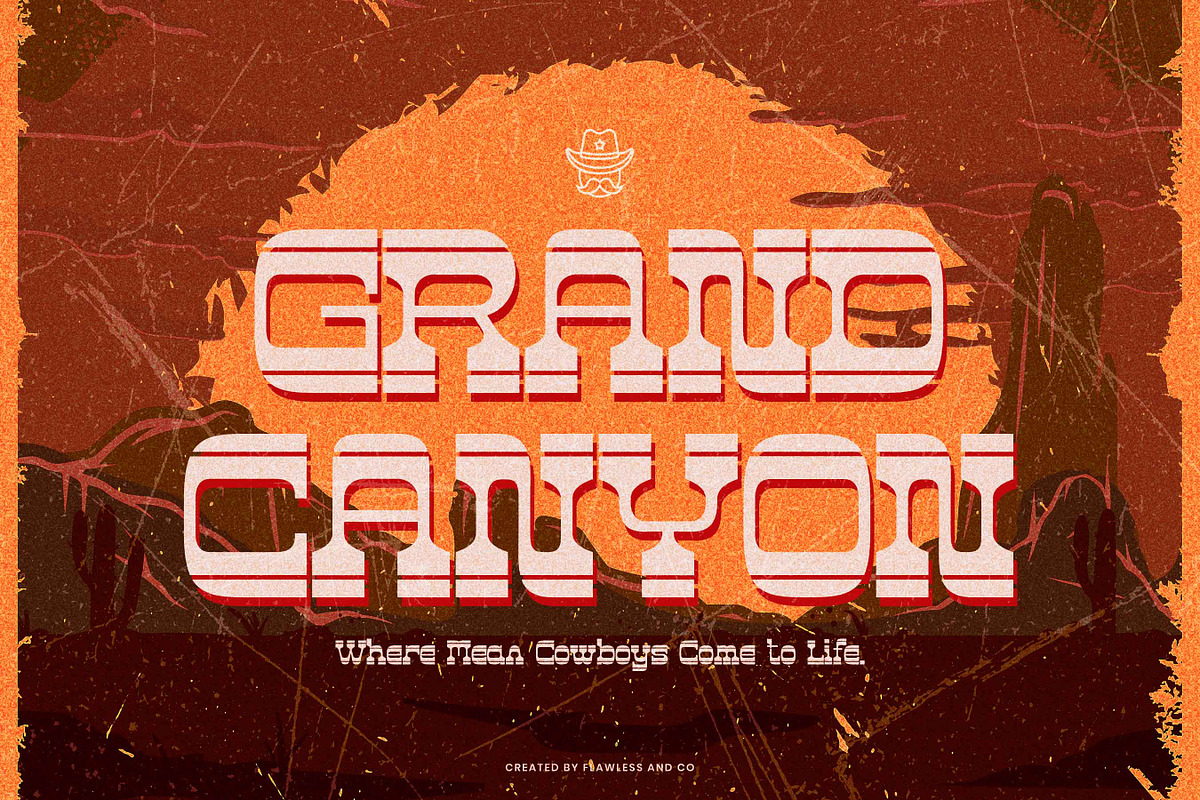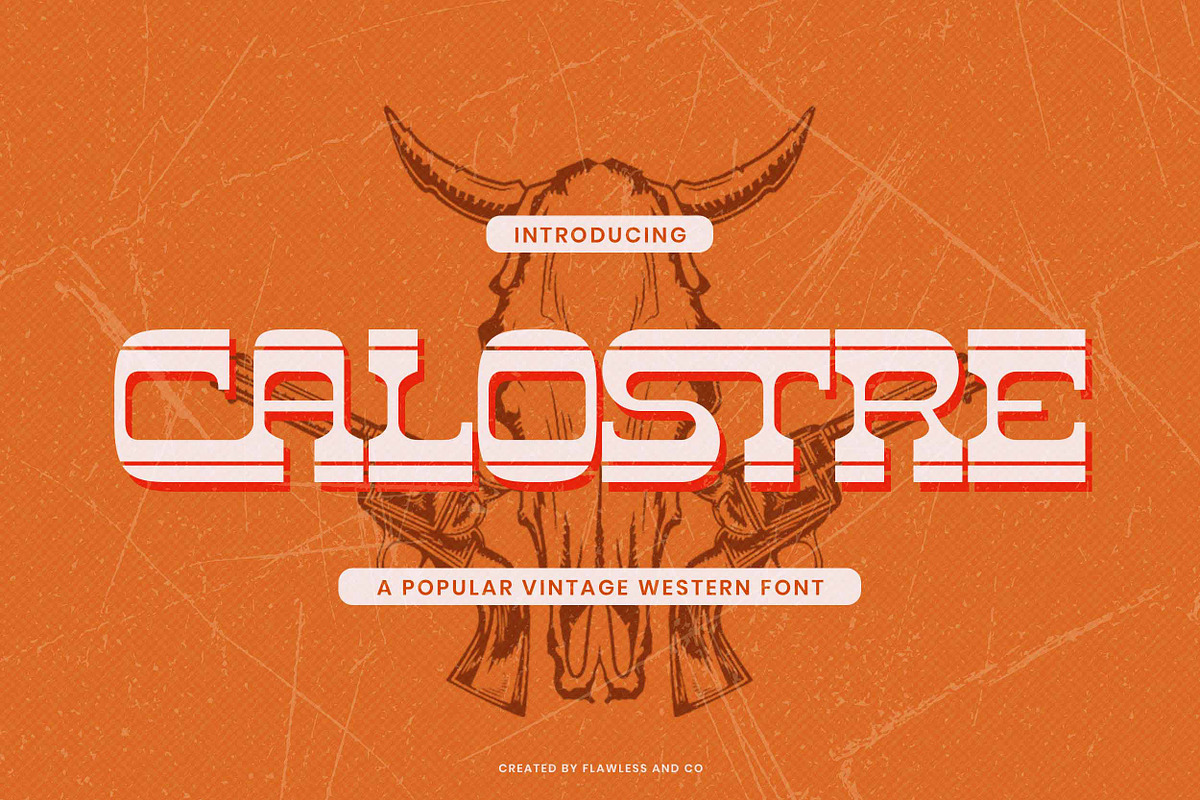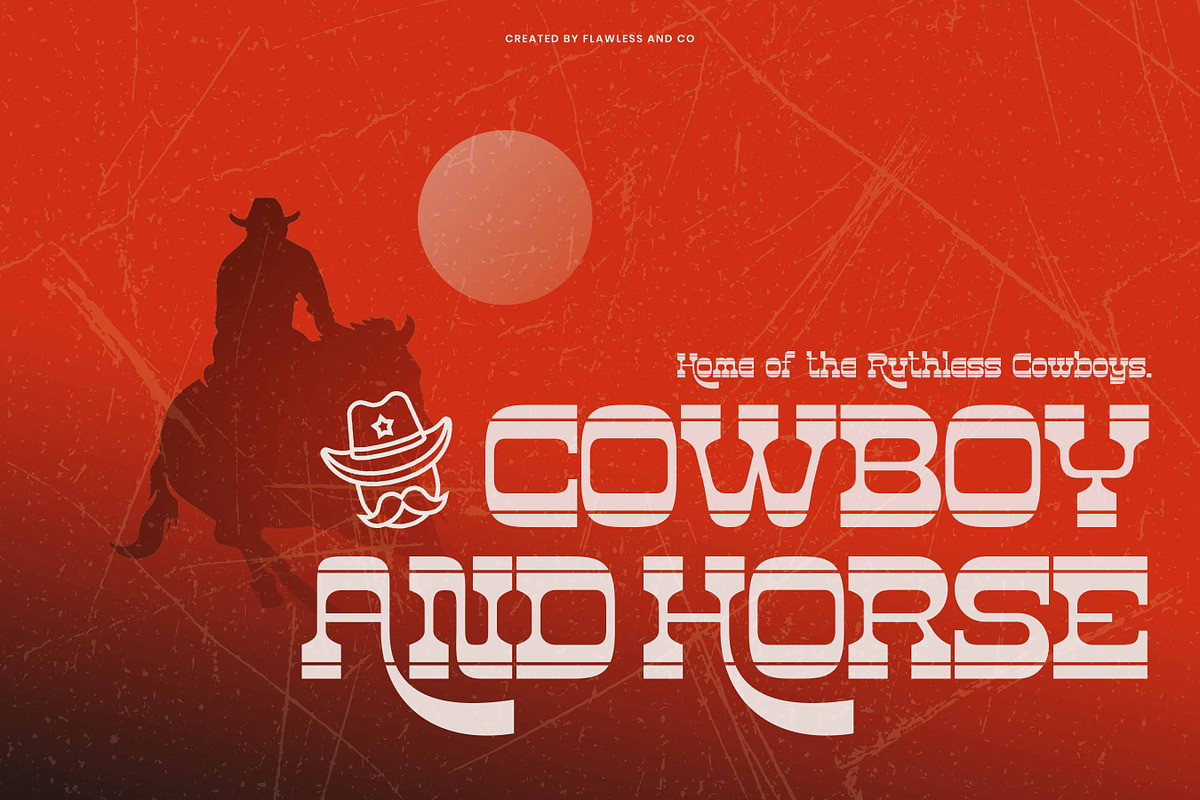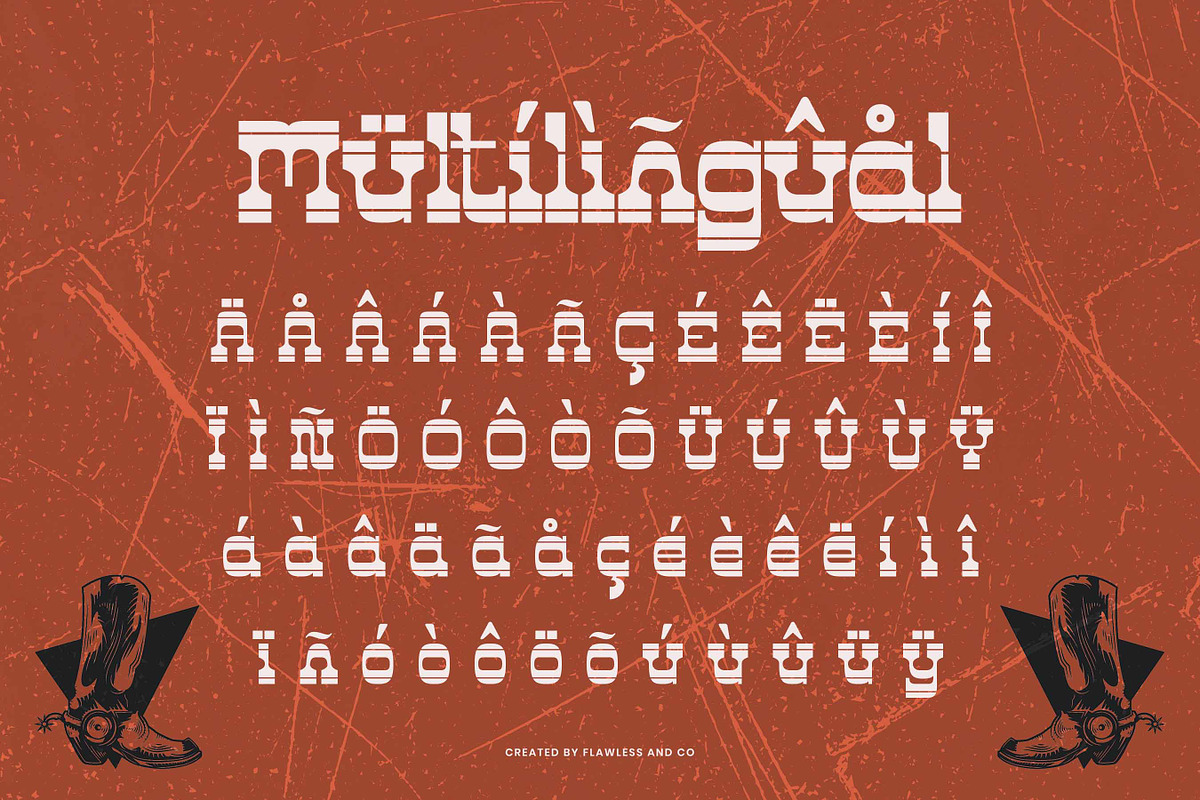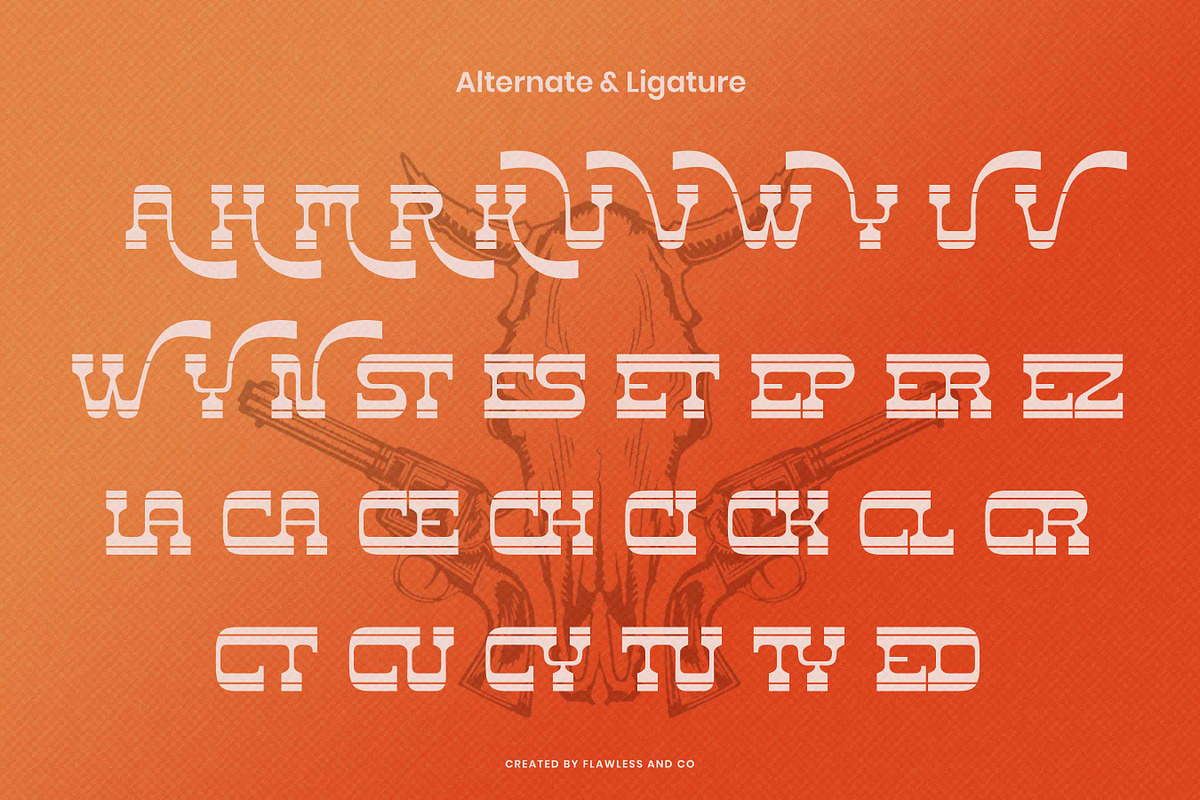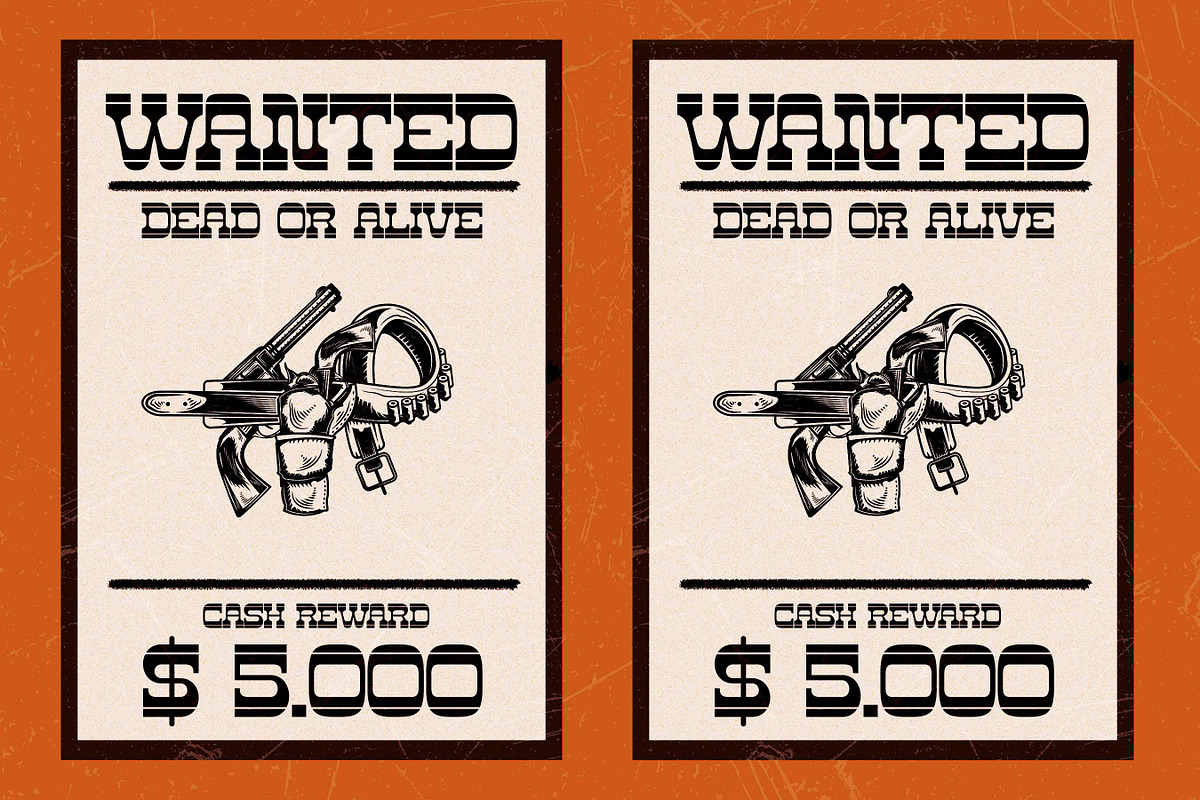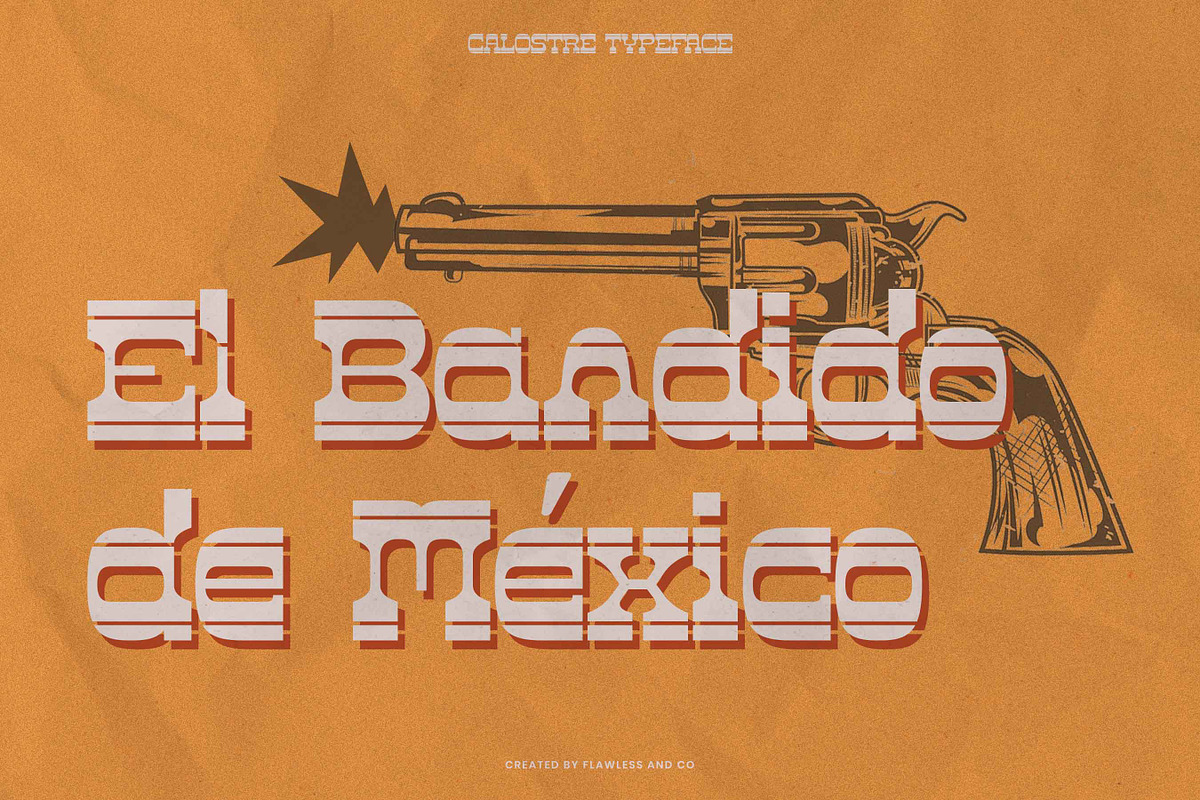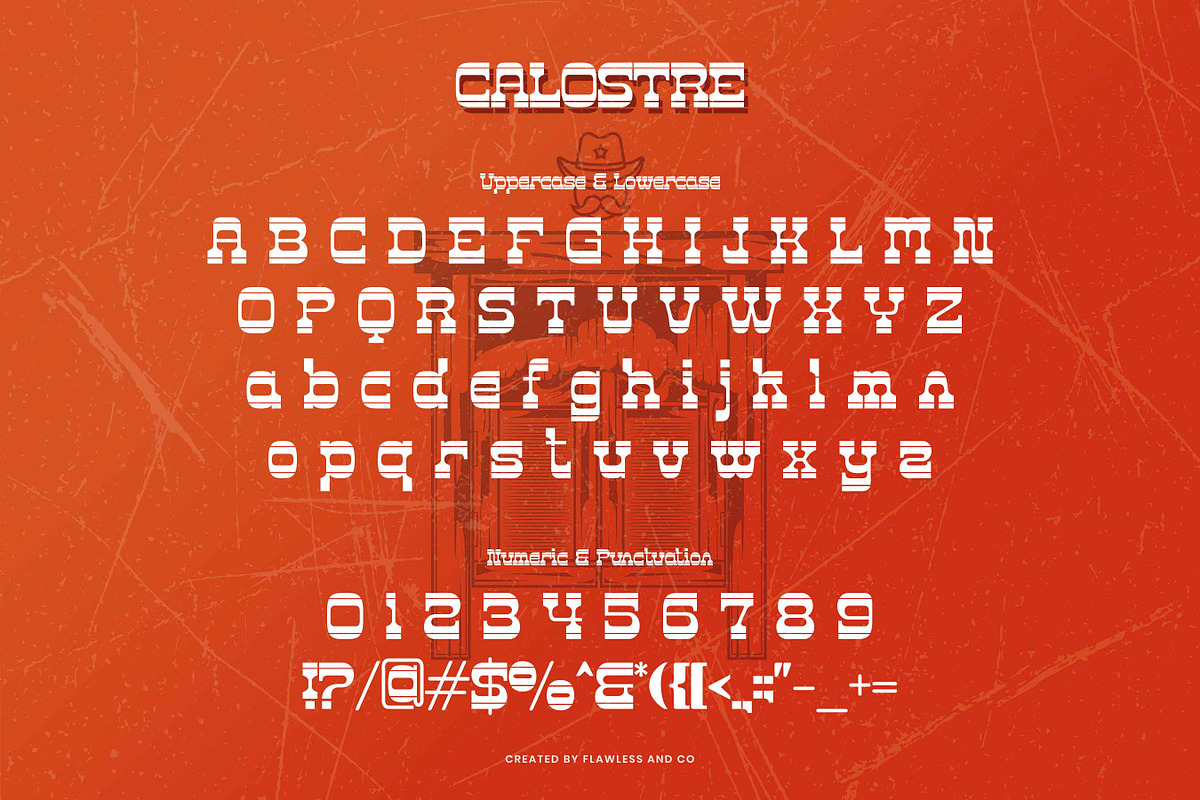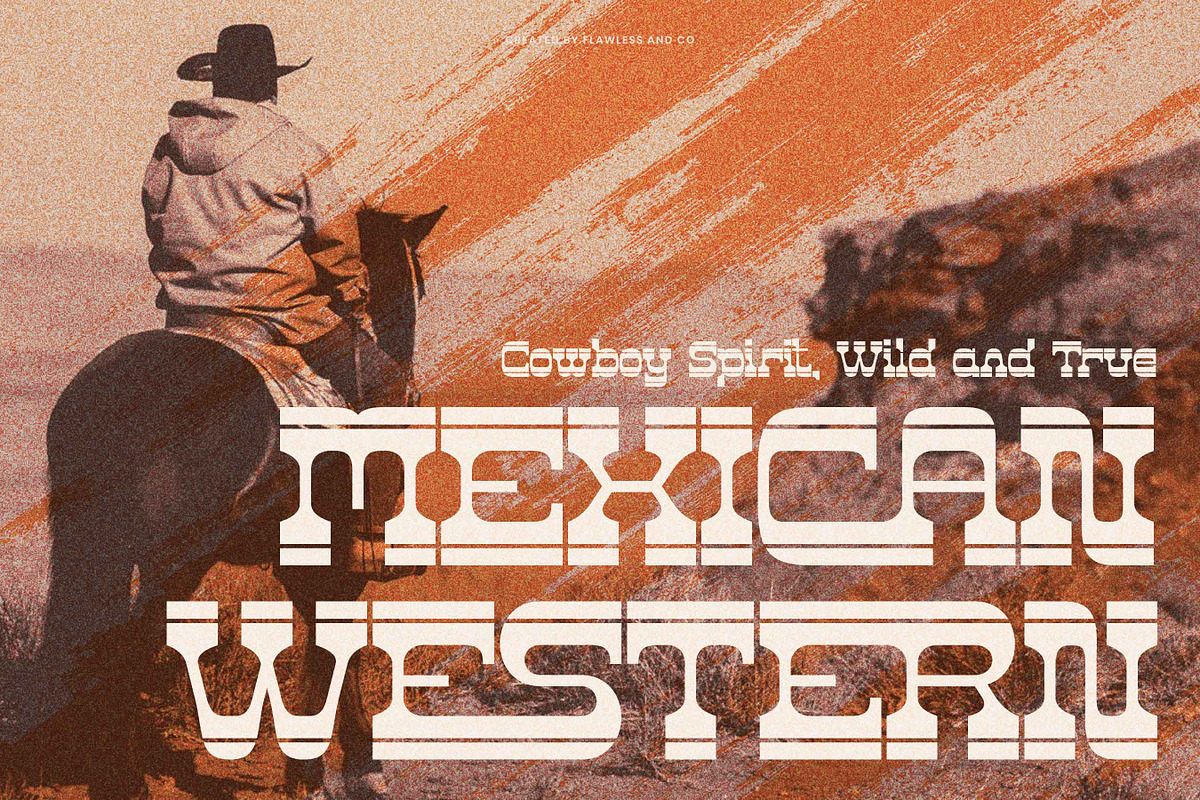
Calostre - Display Vintage Font
Calostre – Vintage Western Slab Serif Font
Calostre is a bold slab serif font that blends vintage western charm with a strong and confident presence. Inspired by classic cowboy culture, retro Americana, and rugged signage, Calostre stands out with its thick horizontal lines, geometric structure, and eye-catching modular forms. Perfect for impactful design projects such as vintage branding, liquor labels, posters, apparel, signage, and bold editorial headlines, Calostre delivers a powerful, distinctive voice. Its slab serif construction adds a sense of strength and stability, while the striped letterforms give it a unique and authentic western flair. The font includes stylistic alternates and unique design details, giving you the creative freedom to craft dynamic and memorable typography.
- Alternates & Stylistic Sets
Use Calostre to create striking visual compositions with retro attitude and timeless western spirit.
Who Should Use Calostre?
Calostre is the perfect choice for designers, creatives, and brand builders who want to bring bold personality and rugged character into their work. Whether you're crafting vintage-style logos, designing western-inspired posters, or building standout packaging, Calostre gives your project that iconic, nostalgic edge.
It’s ideal for:
- Western-themed branding
- Liquor and beverage labels
- Retro event posters
- Apparel and merchandise design
- Signage and editorial headlines
If your project calls for boldness, authenticity, and a touch of vintage grit — Calostre is your go-to font.
A Must-Have Font for Brand, Logo, and Poster Creators and Designers
Calostre isn’t just a font — it’s a bold design weapon. Tailored for creators who thrive on making powerful visual impressions, this vintage slab serif is built to shine in branding, logos, posters, packaging, and everything in between. Whether you're working on a western-inspired identity or a retro headline, Calostre delivers unforgettable style with every letter.
Why Choose Calostre for Brand, Logo, and Poster Projects?
Because your design deserves a typeface with true character. Calostre combines the bold structure of a slab serif with vintage charm to create a font that’s both timeless and attention-grabbing. Its strong lines and retro aesthetics bring impact to logos, posters, and brand visuals, while still maintaining clarity and versatility. Whether you’re crafting a nostalgic brand identity or a standout promotional piece, Calostre offers the perfect balance of personality and professionalism.